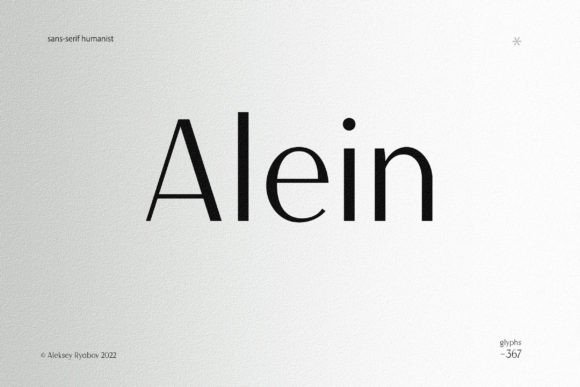
The Perfect Typographic Partner for Your Next Creative Project
Have you ever been working on a design project, staring at a blank page, and suddenly, the perfect font just clicks? That’s exactly what happened to us when we discovered Alein Font – a modern and clean sans serif typeface that has been making waves in the design community. With its versatility and timeless charm, Alein Font is the ultimate go-to font for any project that requires a touch of sophistication and elegance.
Alein Font is more than just a font – it’s a tool that empowers designers to bring their creative vision to life. Whether you’re crafting a logo, designing a wedding invitation, or creating a quote that will inspire, Alein Font is the perfect partner to help you achieve your goals. Its clean lines, simple shapes, and balanced proportions make it an invaluable asset for any designer looking to elevate their work.
Alein Font Key Features
- Unique Characteristics: Alein Font features a unique blend of modern and futuristic elements, with a distinctive aesthetic that sets it apart from other fonts.
- Font Weight: Alein Font is available in multiple weights, including light, regular, medium, bold, and black, allowing users to choose the perfect weight for their design needs.
Alein Font Review
Overall, I found the Alein Font to be a decent option for designers looking for a futuristic sans-serif font. Here are some of its notable strengths:
- ✨ Unique and modern aesthetic, making it perfect for sci-fi and tech-related projects.
- ✨ Excellent legibility, even at smaller font sizes, ensuring that the text remains clear and readable.
- ✨ Supports a wide range of languages, including many non-Latin scripts, making it a versatile choice for global projects.
- ⚠️ The font’s complexity and boldness can make it difficult to read in certain situations, such as in low-light environments or when used at very large font sizes.
- ⚠️ The font’s weight and proportions may not be suitable for all design projects, particularly those requiring a more traditional or conservative look.
Overall, I would rate the Alein Font 3.5 out of 5 stars. While it has some notable strengths, its limitations may not make it the best choice for every design project. However, for the right project, it could be a great option to consider.
Tips for Getting the Most Out of Alein Font
Alein Font is ideal for use in creative projects such as:
- Business cards and stationery
- Infographics and data visualizations
Alternatives to Alein Font
Inter Font is a sans-serif typeface designed by Rasmus Andersson. It is a highly legible and versatile font suitable for a wide range of applications, from body text to display headings. Inter Font is a great alternative to Alein Font for designers who want a clean and modern look.
Inter Font is more geometric and has a slightly more rounded appearance compared to Alein Font, which has a more angular feel. Inter Font is also more suitable for digital applications, while Alein Font has a more traditional feel.